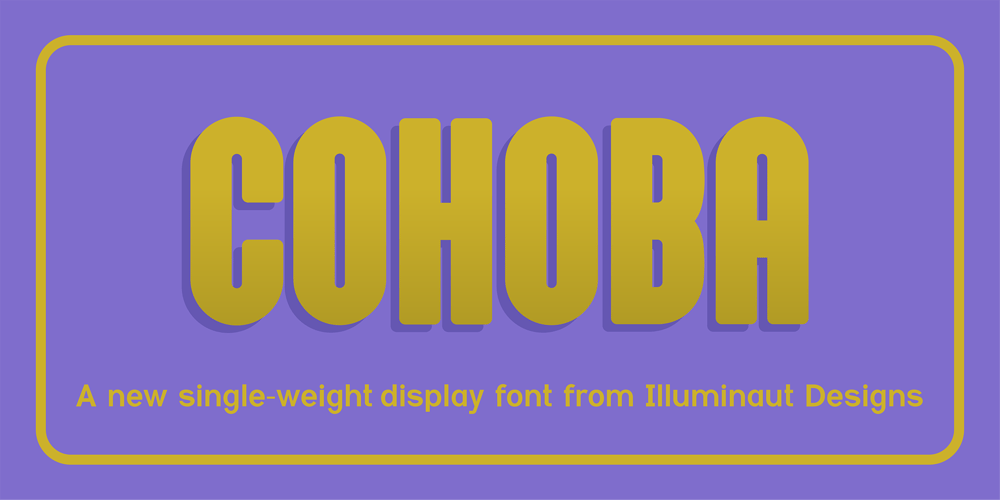
Cohoba Font Family was designed by Jesse Smith and published by Illuminaut Designs. Cohoba contains 1 styles and family package options. Cohoba is a chunky condensed sans serif. Cohoba is loud and proud. It comes with a handful of discretionary ligatures. Cohoba is fun and versatile.